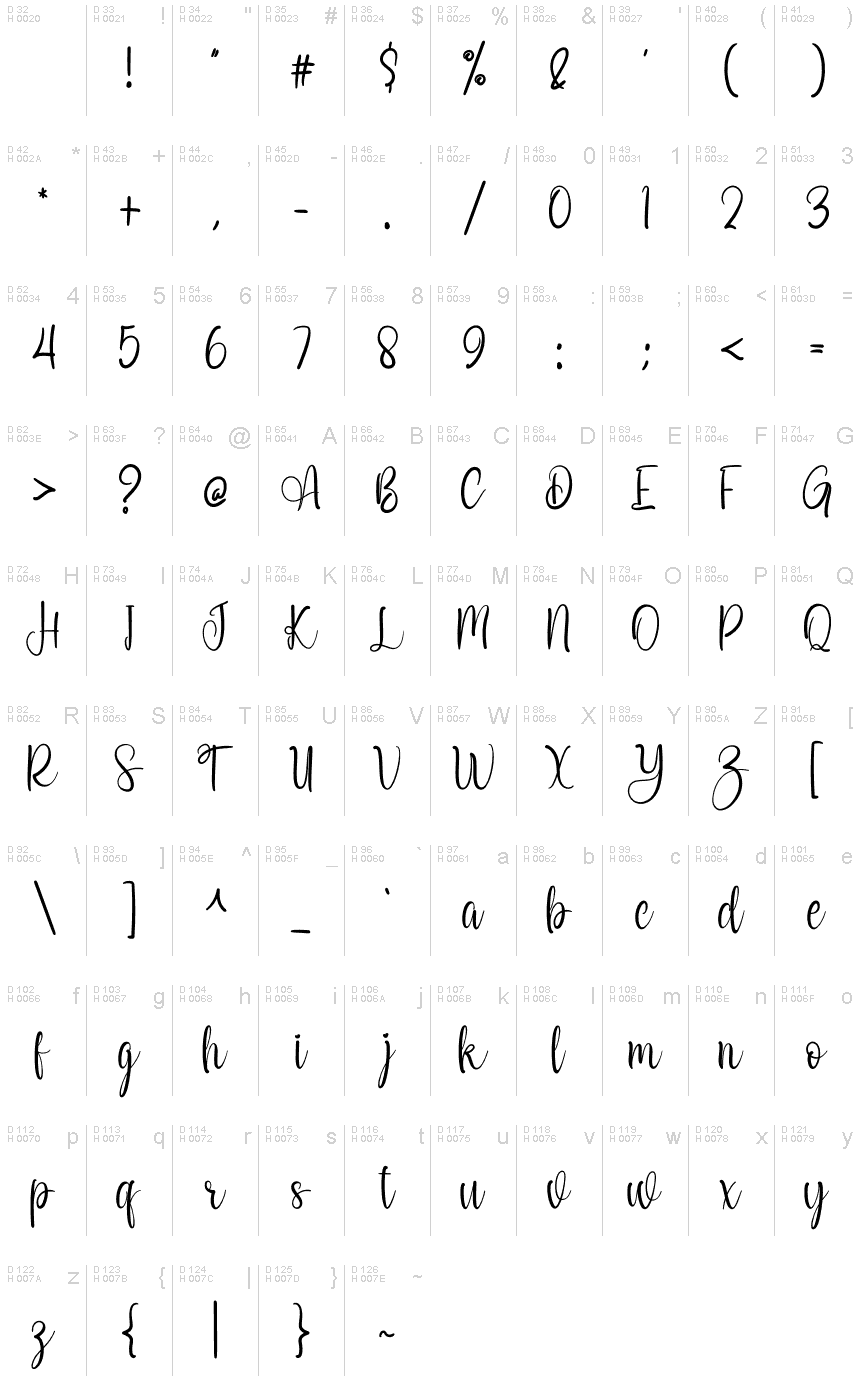
Together
Together, a captivating handwritten font by designer 39, adds a touch of elegance and personal charm to any project.
With its semi-light weight and condensed width, this versatile typeface is perfect for creating eye-catching logos that evoke a sense of intimacy and warmth. Its delicate curves and flowing strokes make it equally suitable for wedding invitations, heartfelt quotes, or even blog headers.
Let Together be the voice that connects people through the power of words in your next creative endeavor.